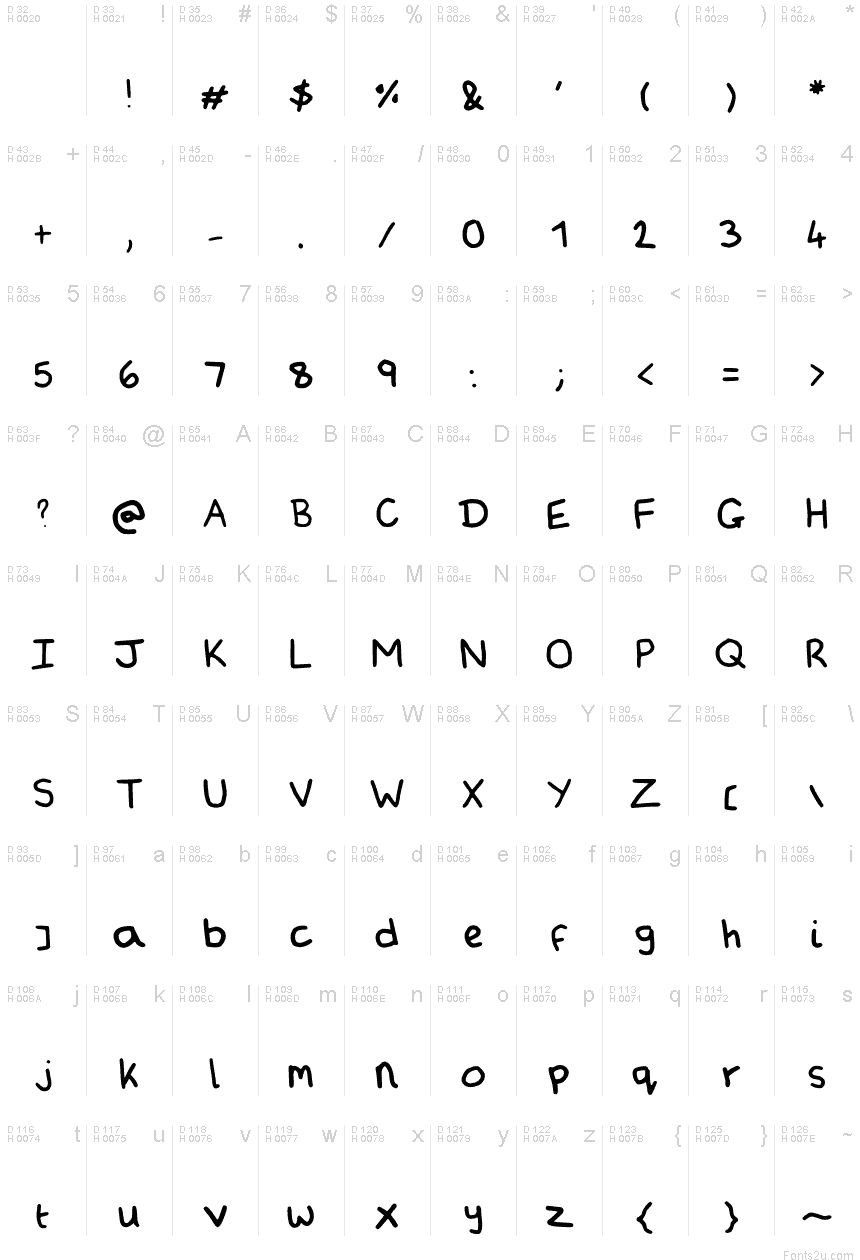
ArminsFrozenPeas by MyScriptFont.com is a free handwritten font with tall, loosely drawn letters and softly rounded ends. Stroke widths shift noticeably, giving the writing an easy marker-pen quality. Several forms lean or wander slightly.
A children's book cover is a natural home for its cheerful, unguarded drawing. It also suits snack packaging and classroom posters, where the irregular outlines can echo simple doodles and cut-paper artwork. In product branding, the lettering can become a recognizable handwritten signature for playful food or craft labels.
ArminsFrozenPeas